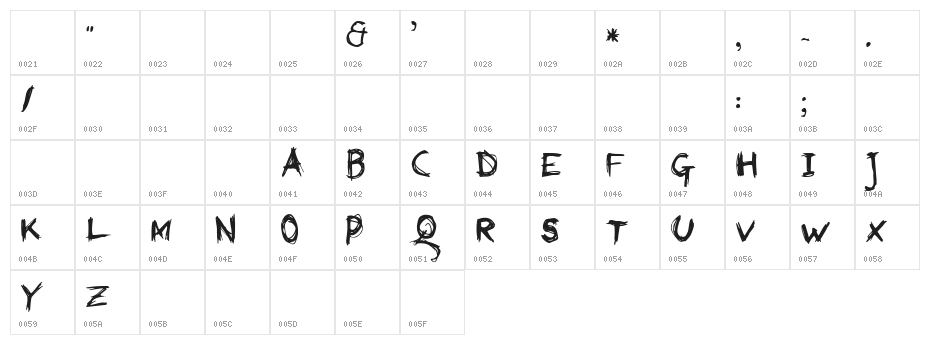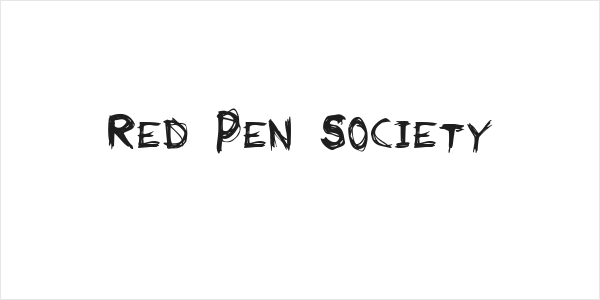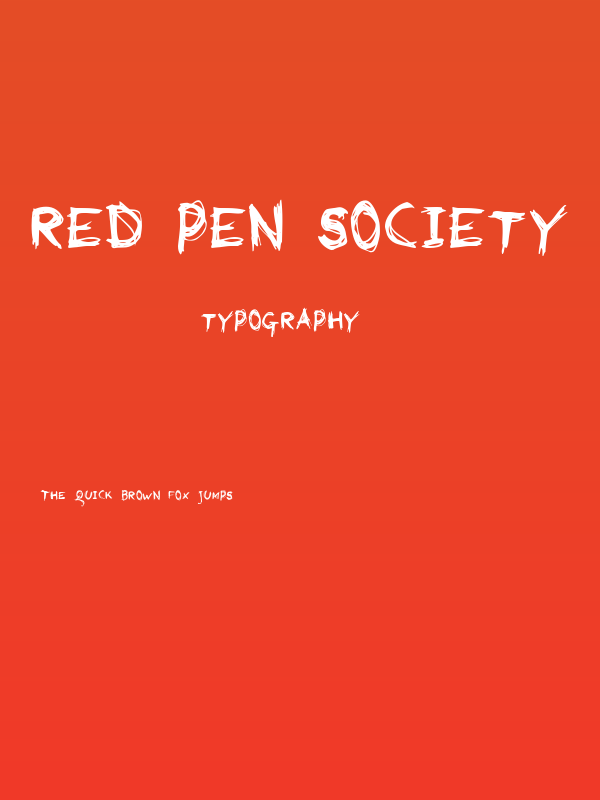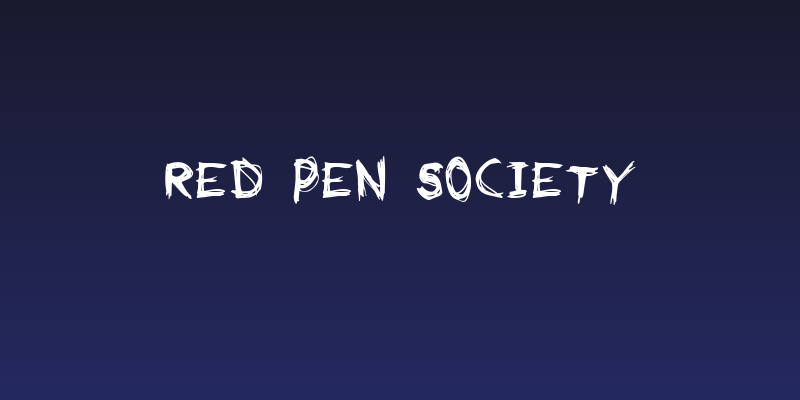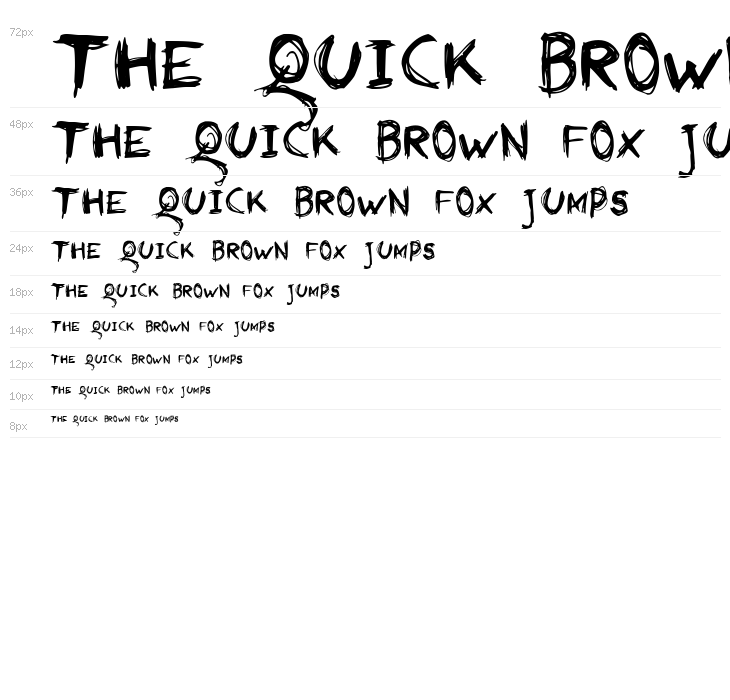
Red Pen Society Font
Red Pen Society Description
This font features a dynamic and expressive style, characterized by its brush-like strokes and irregular, hand-drawn appearance. The letters exhibit a playful yet slightly chaotic energy, with varying thicknesses and angles that give it a unique, artistic flair. The uppercase and lowercase letters maintain a consistent style, with some letters incorporating decorative elements such as swirls and exaggerated serifs. The overall design suggests a sense of movement and spontaneity, making it ideal for creative projects that require a bold and unconventional look.
| Overall Style | Artistic, Expressive |
| Proposed Projects | Ideal for artistic projects, posters, album covers, and branding that seeks a bold, creative touch. |